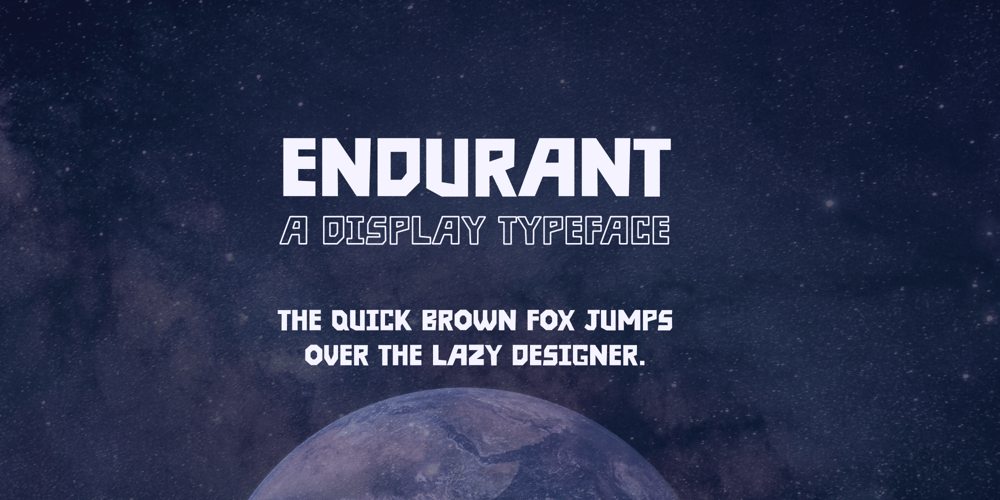
Endurant Font Family was designed by Bapusaheb Patil and published by Baps Patil. Endurant contains 2 styles and family package options. Endurant is a font inspired by futuristic conceptual arts from the late-20th century. The question it answers is, “What if someone in the late 20th century were to imagine a futuristic font?”Endurant is a brave, all-caps display font. Because of what it’s inspired by, it is suitable for futuristic and retro-modern designs in the modern-day world.It can be used for graphic design, poster design, web and mobile UI design—and many other applications.